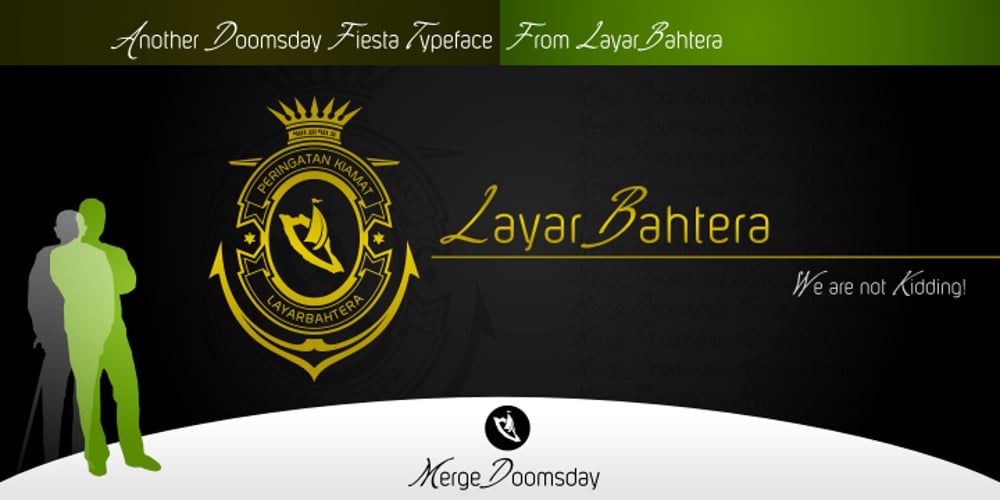
Merge Doomsday
Merge Doomsday font
Merge Doomsday Font Family was designed by – Morabira and published by LayarBahtera. Merge Doomsday contains 3 styles and family package options. A merge version between LayarBahtera Doomsday Condensed font and freestyle initial script